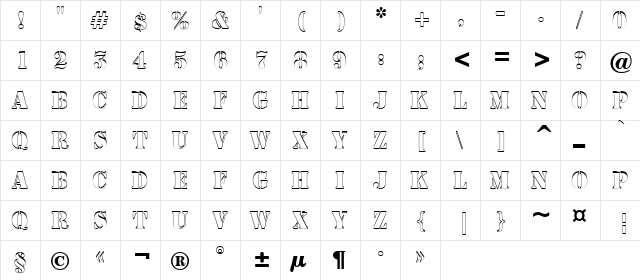
a_StamperSh Regular Font Preview
a_StamperSh Regular
a_StamperSh Regular Font Details
Design Context for a_StamperSh Typeface
a_StamperSh has the rough pragmatism of spray-painted stencil signage, adding a raw, street-level authenticity to designs.
Ideal for industrial branding, streetwear, military-adjacent aesthetics, and urban signage projects.
Pro Tip: Pair a_StamperSh with raw, utilitarian design elements — exposed concrete textures, flat colour, and minimal ornamentation suit it well.